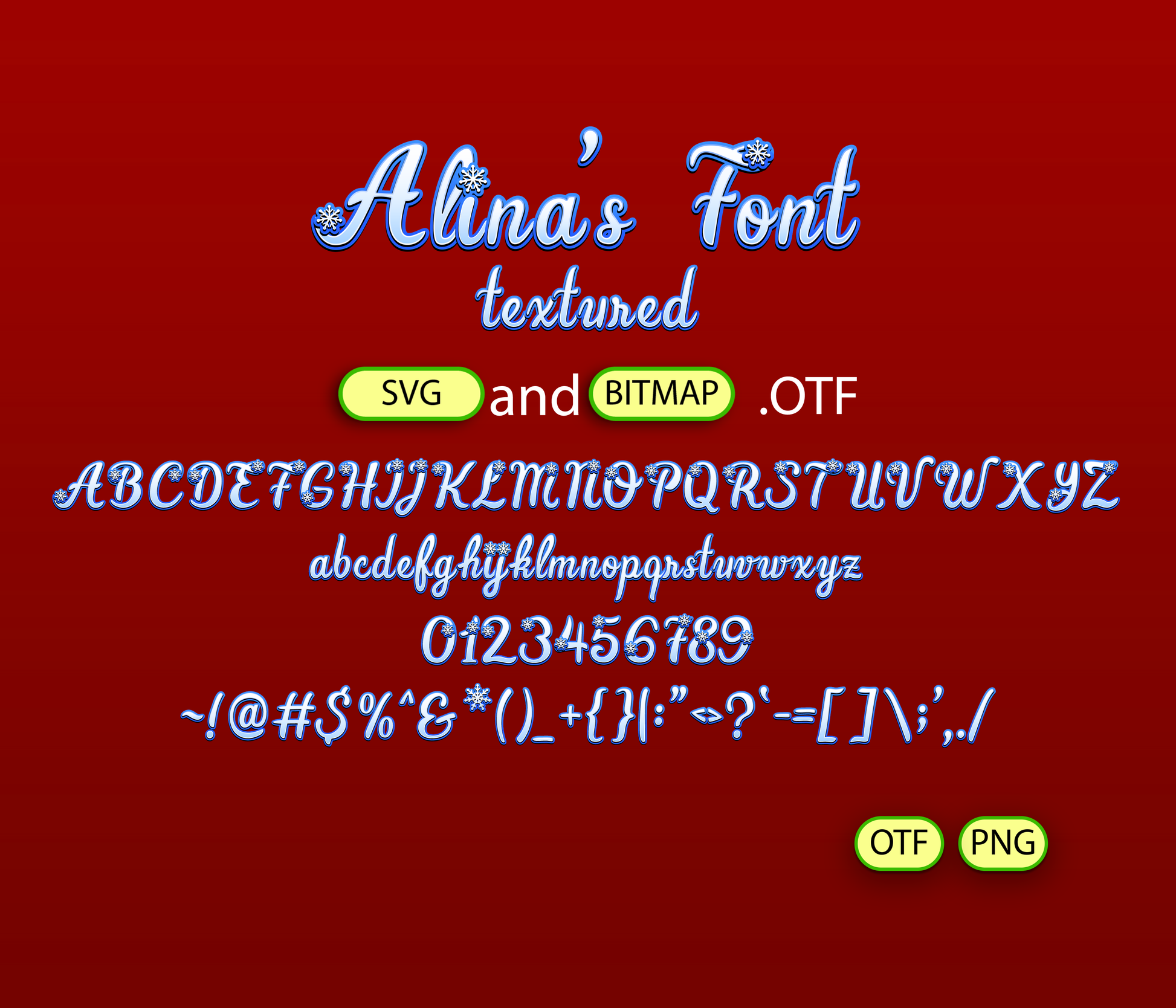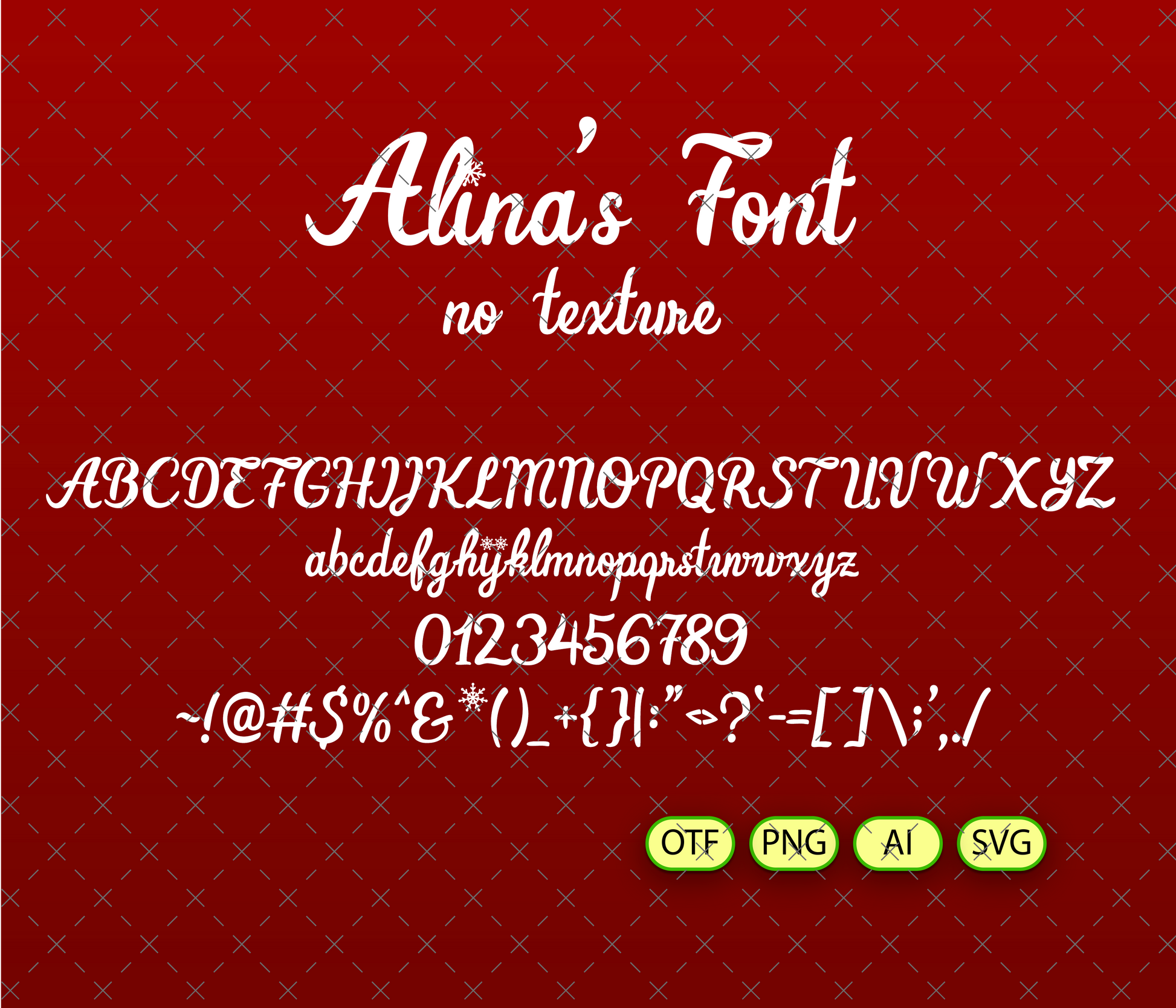
Snowflake Christmas Font Textured
Snowflake Christmas Font Decorative
Step into the enchanting world of winter wonderland celebrations with our Snowflake Christmas Font Decorative, capturing the essence of frosty festive cheer and magical seasonal traditions. Perfect for holiday crafters, sublimation designers, small business owners, and creative professionals, this font brings the delicate, mesmerizing spirit of snowflake Christmas to your projects. Create heartwarming greeting cards, merchandise, or digital content with the crystalline energy of the holiday season.
Festive Multicolor Typography for Holiday Crafts & Seasonal Design
Our Snowflake Christmas Font Decorative features vibrant, intricate letterforms with holiday-themed textures reflecting the world of winter decorations and frosty seasonal joy.
Our font pays tribute to the iconic world of winter wonderland holiday traditions and decorative festive design, empowering your projects with its delicate and mesmerizing spirit. Whether crafting seasonal materials, designing Christmas products, or adding a frosty snowflake touch to personal projects, this font communicates the heartwarming essence of crystalline holiday magic. Ready to inject snowflake Christmas cheer into your creations? This font is your key to enchanting, impactful design.